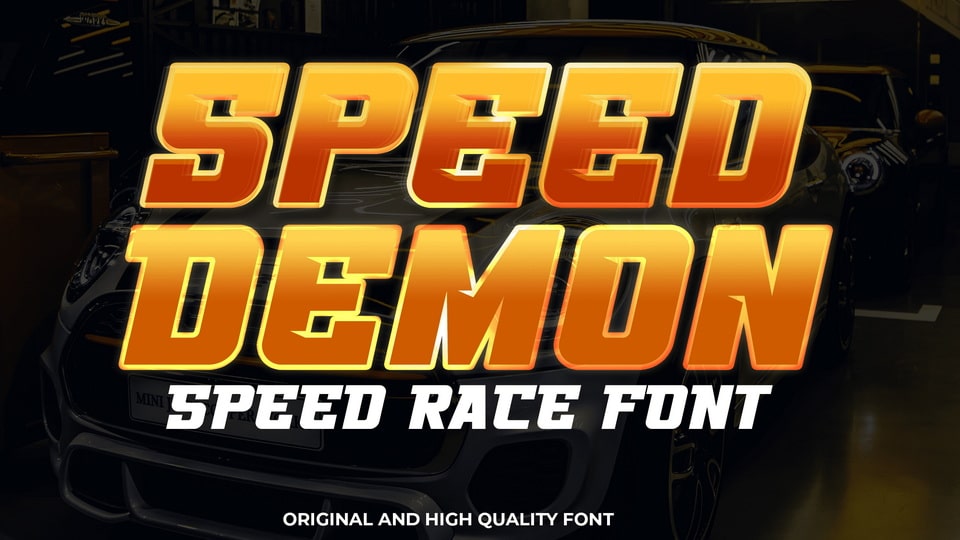
Download Speed Demon font, the ultimate speed race display typeface. If you’re looking for a modern and edgy gaming font that’s sure to make your message stand out, Speed Demon is the perfect choice.
Designer: IDEBARENG